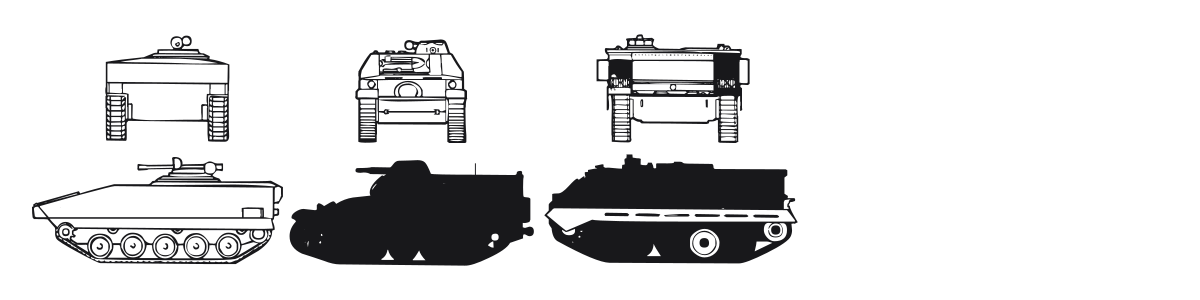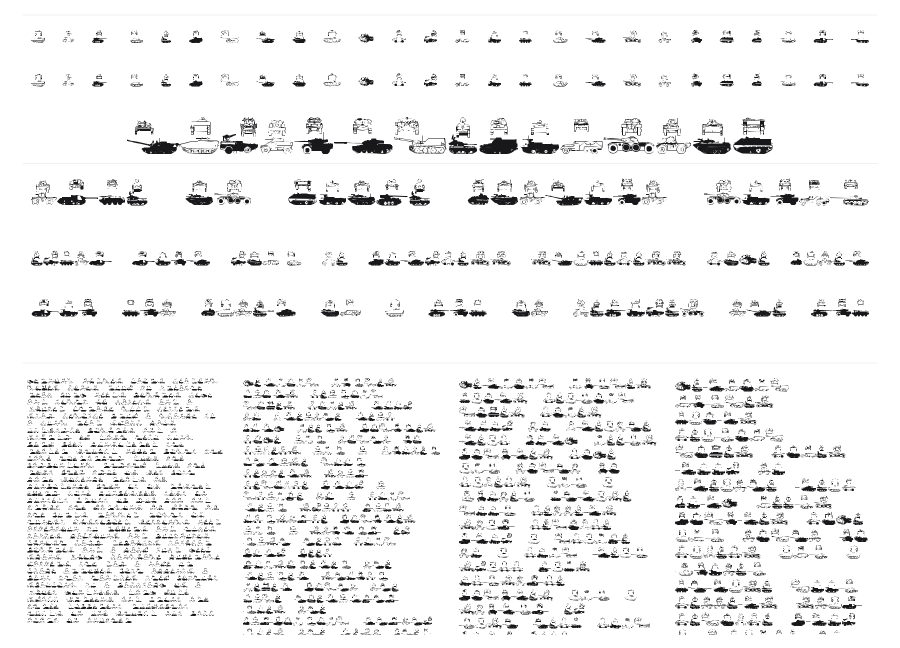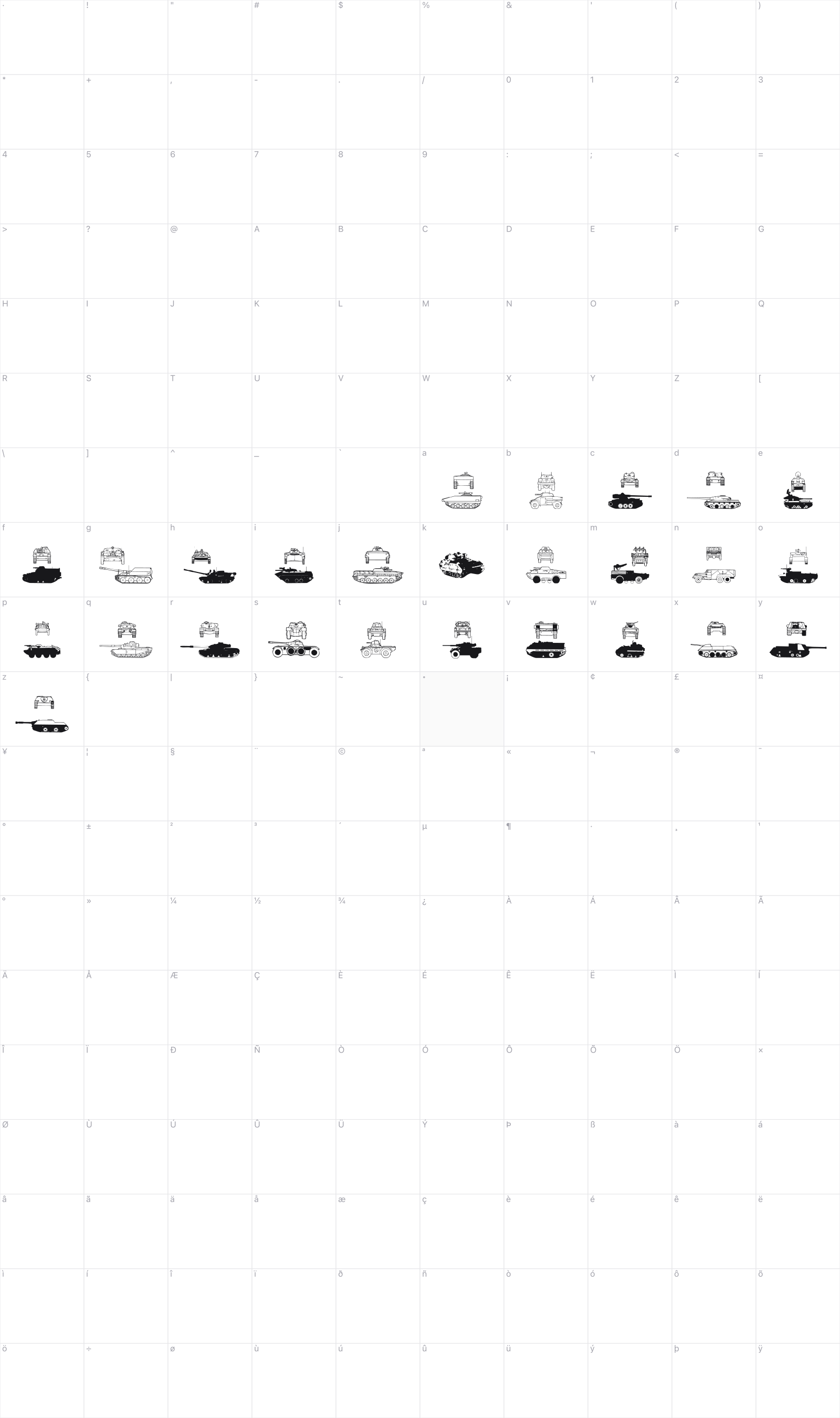
AFV 1+2
by Perry Mason
AFV 1+2 is a dingbat font featuring detailed silhouettes of armored fighting vehicles, from main battle tanks to self-propelled artillery, drawn in profile view. Each glyph is a clean technical illustration, rendered in both outline and solid fill styles across the character set. The kind of resource that wargame designers, military history publishers, and tabletop RPG creators reach for.